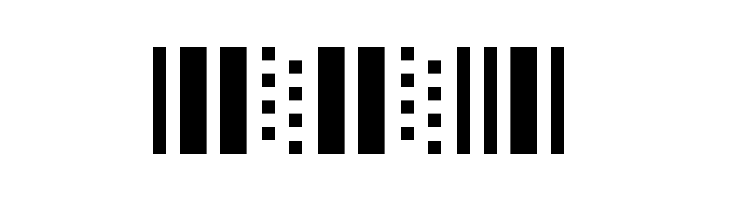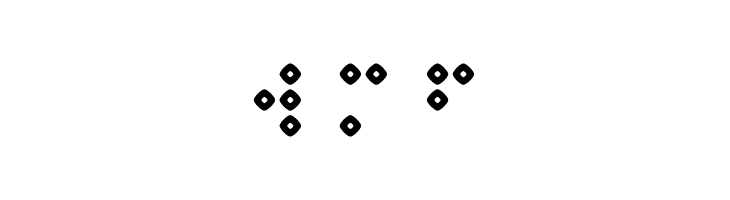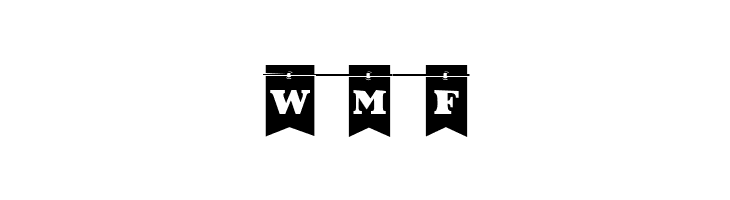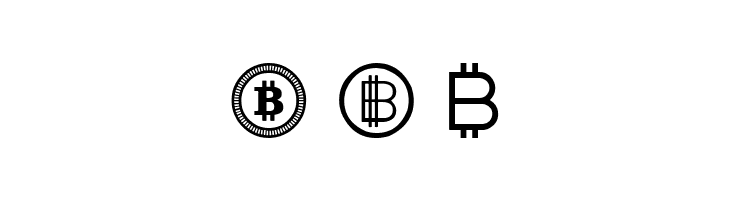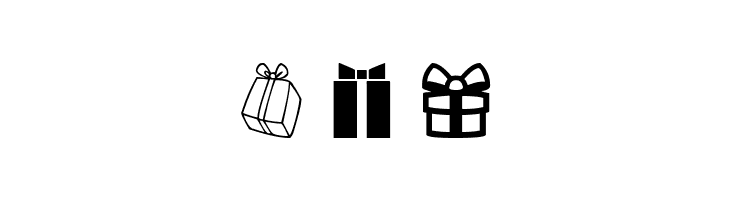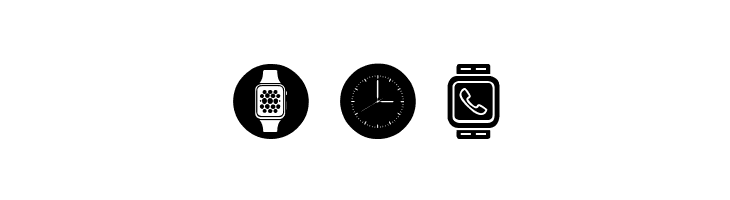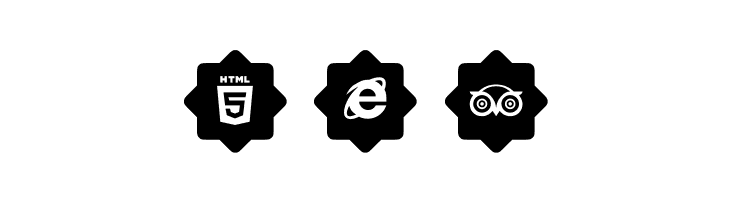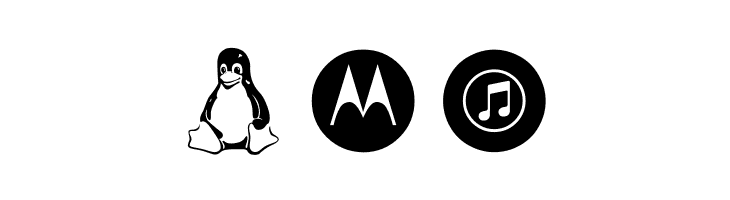
( TwoNineFive - Maximillian Limpo )
An artistic Morse code representation using vertical bars.
( Vladimir Nikolic - www.coroflot.com/vladimirnikolic )
A hollow, regular Braille font for visual representation.
( Vladimir Nikolic - www.coroflot.com/vladimirnikolic )
A Braille font representing characters with raised dot patterns for tactile reading.
( Vladimir Nikolic - www.coroflot.com/vladimirnikolic )
Bold, decorative font with a playful, banner-like presentation.
( Volker Busse - F25 Digital Typeface Design - Volker Busse - www.grafikkontor-mitte.de )
A bold, monospaced font with uniform strokes and clear readability.
( Woodcutter - woodcutter Manero - www.woodcutter.es )
Bold, iconographic font focused on cryptocurrency and finance symbols.
( Woodcutter - woodcutter Manero - www.woodcutter.es )
A decorative icon set of various gift boxes and presents.
( Woodcutter - woodcutter Manero - www.woodcutter.es )
Modern, bold smartwatch icon set with geometric shapes.
( elharrak - elharrak fonts - el-harrak.blogspot.com/ )
Bold, gear-shaped icon set for brands and apps.
( elharrak - elharrak fonts - el-harrak.blogspot.com/ )
Bold, circular icon set for tech and social media brands.